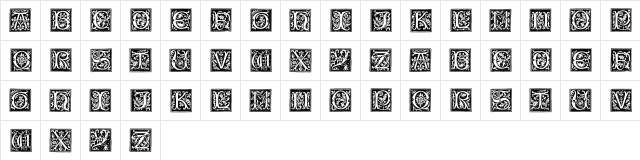
TypographerWoodcutInitialsOne Regular
Design Context for TypographerWoodcutInitialsOne Typeface
TypographerWoodcutInitialsOne echoes the hand-painted signage and woodblock typography of the American frontier, with a warm, rugged personality.
Perfect for barbecue restaurants, country music branding, vintage poster design, and rustic packaging.
Font Pairing: Combine TypographerWoodcutInitialsOne with a simple slab or neutral sans — period-accurate companions reinforce the vintage feel without competing for attention.
Pro Tip: Pair TypographerWoodcutInitialsOne with aged textures or distressed backgrounds to amplify its vintage personality.